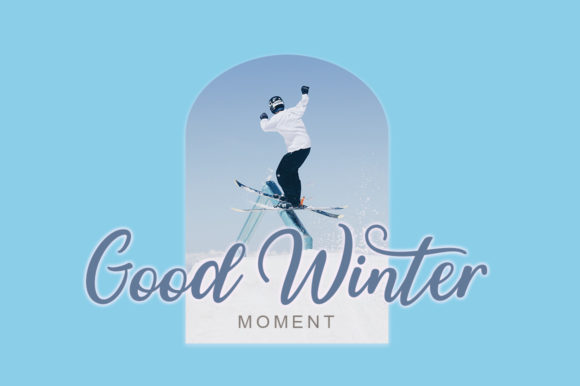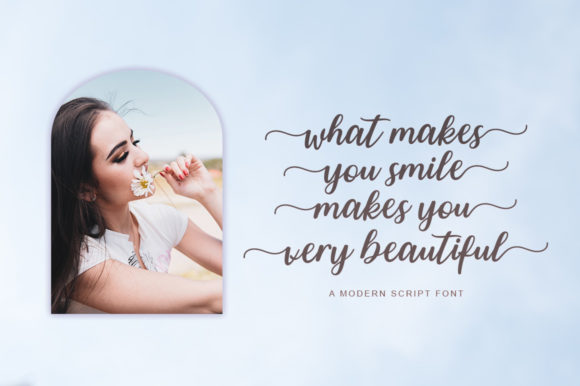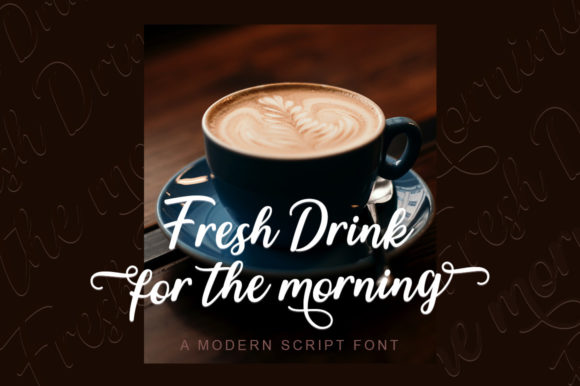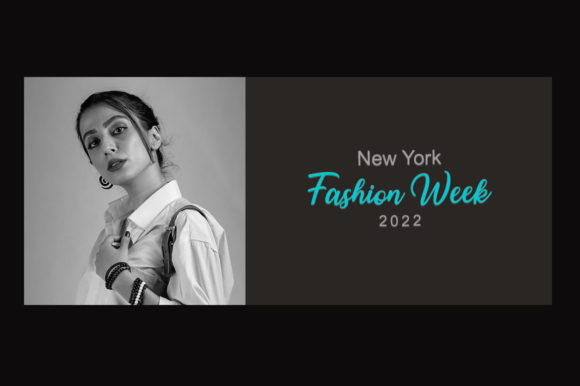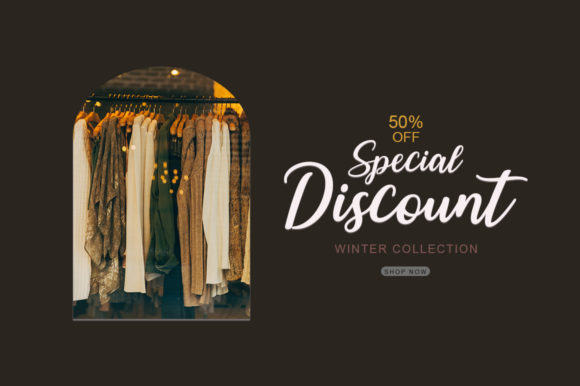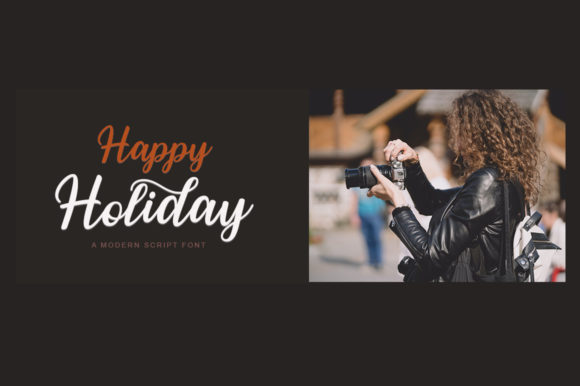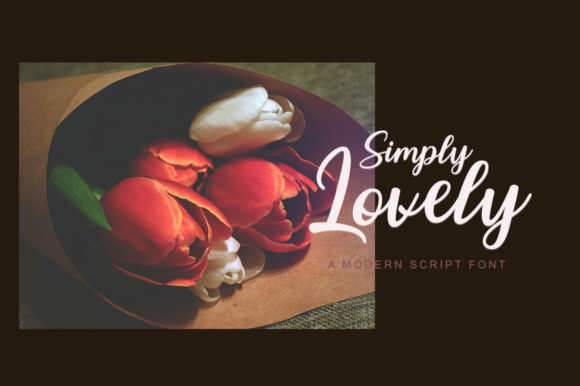
Winter Story Font
About Winter Story Font
Winter Story is a beautiful and stylish script font. It looks ravishing and unique and it will most certainly elevate a wide range of creations. This font is PUA encoded which means you can access all of the glyphs and swashes with ease!